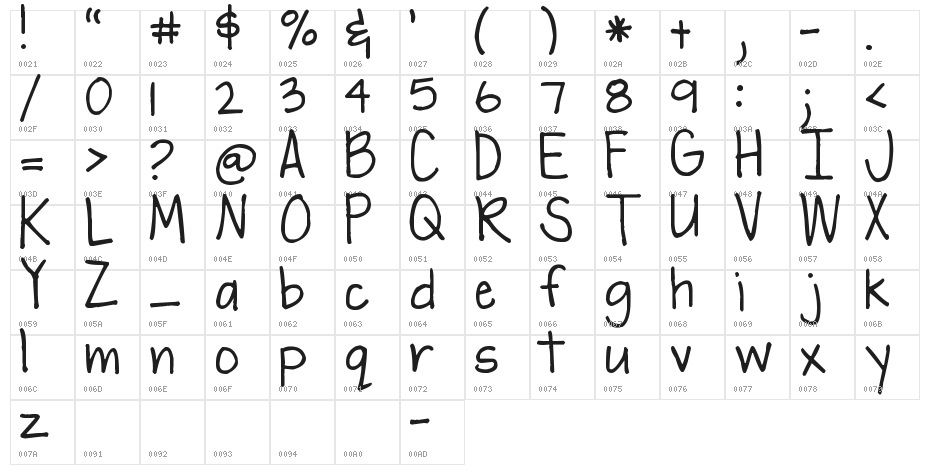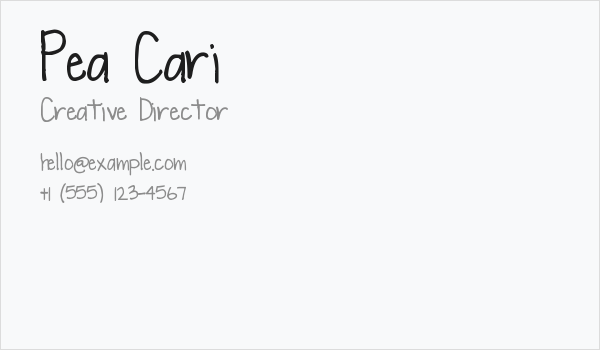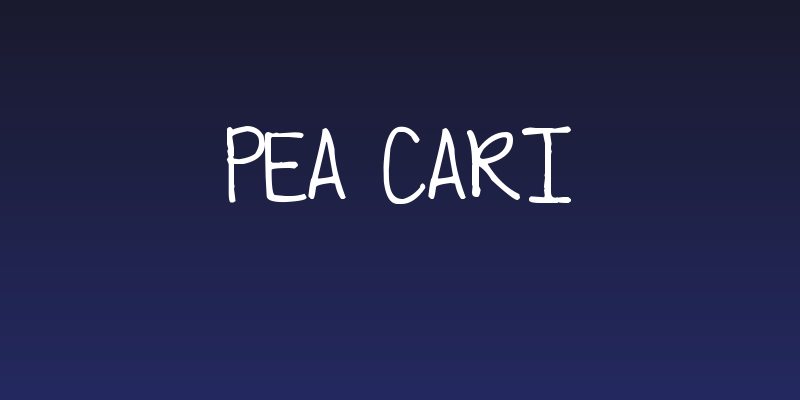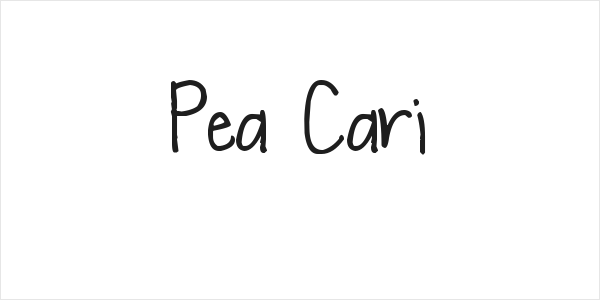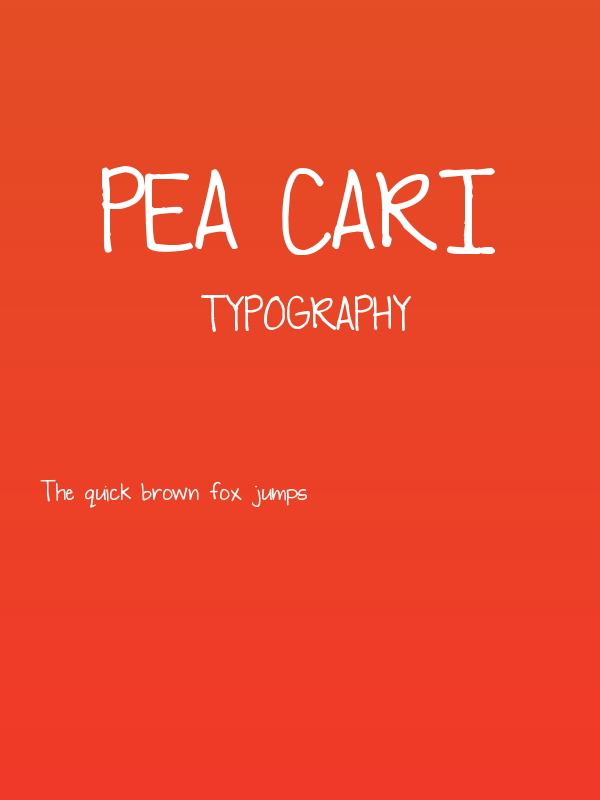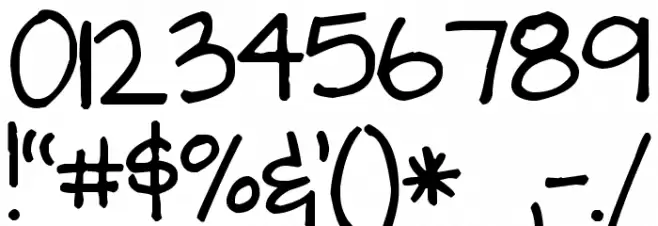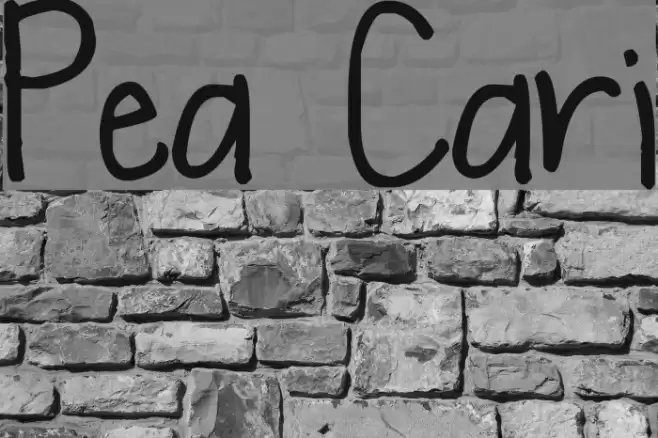
Pea Cari Font
Pea Cari Description
This font features a playful and casual handwritten style, characterized by its irregular strokes and informal appearance. The letters are slightly uneven, giving it a natural and personal touch, reminiscent of a quick note or a casual message. The uppercase and lowercase letters maintain a consistent style, with rounded edges and a friendly demeanor. The numerals and special characters follow the same informal aesthetic, making the font versatile for various creative projects. Its overall appearance is approachable and relaxed, suitable for designs that aim to convey warmth and personality.
| Overall Style | Casual |
| Use Case | Headlines, Informal text, Creative projects |
| Proposed Projects | Ideal for greeting cards, personal blogs, children's books, and informal branding projects. |